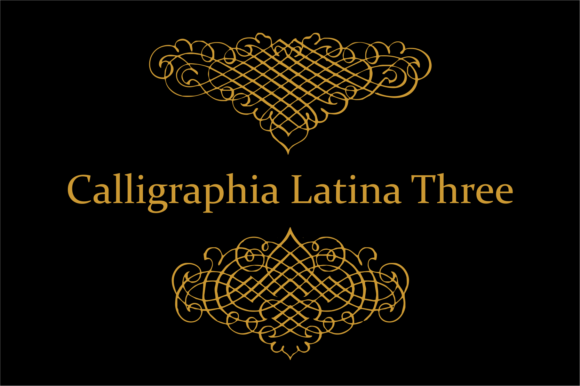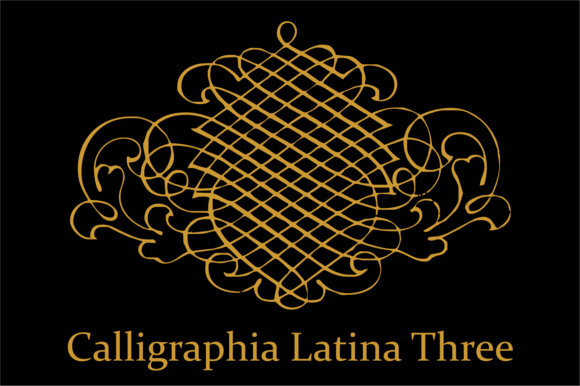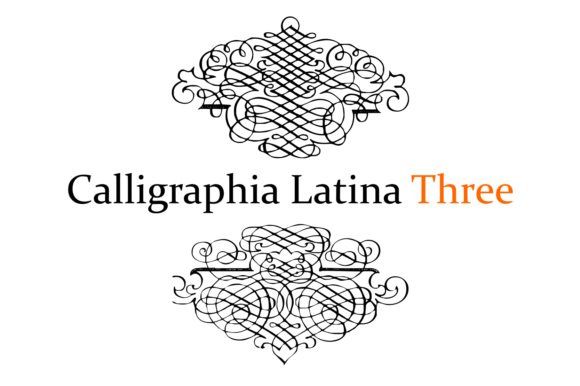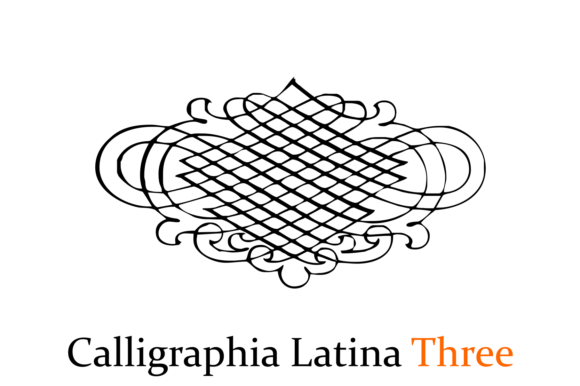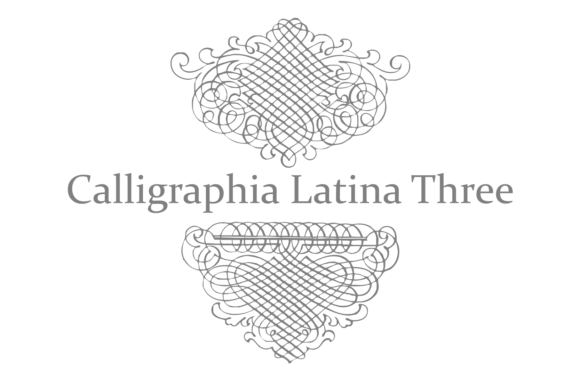
Calligraphia Latina Font
About Calligraphia Latina Font
CalligraphiaLatina is indeed one of the most successful ornament fonts in the realm of typography. It embraces the trend of “messed-up calligraphy,” which has gained significant popularity in recent times. Developed by Intellecta Design, CalligraphiaLatina has become a global best-seller due to its unique and artistic appeal.
CalligraphiaLatina goes beyond a single font and encompasses a whole family of fonts, consisting of 13 different sets. This extensive collection provides a complete solution for designers seeking intricate fleurons and ornaments to complement various styles of artwork.
The original CalligraphiaLatina font captures the essence of calligraphy with a distinct and messy flair. Its intentionally imperfect strokes and irregularities add a touch of authenticity and artistic charm to designs. This font is particularly well-suited for projects that aim to evoke a sense of handcrafted elegance and unconventional beauty.
The family of fonts associated with CalligraphiaLatina expands the creative possibilities even further. With its diverse range of styles and variations, designers have access to a comprehensive set of fleurons and ornaments to enhance their artwork. These intricately designed elements can be used to embellish typography, create decorative borders and frames, or add flourishes and accents to various design compositions.
The popularity of CalligraphiaLatina can be attributed to its ability to infuse designs with a distinct and expressive character. By embracing the “messed-up calligraphy” trend, this font allows designers to break away from traditional norms and explore a more free-flowing and artistic approach to typography.
Whether you’re working on branding, packaging, invitations, or any other design project, CalligraphiaLatina offers a versatile toolkit to add an intriguing and unique touch. Its broad range of fleurons and ornaments ensures that you can find the perfect elements to complement your artistic vision and create visually captivating designs.
In summary, CalligraphiaLatina is a highly successful ornament font renowned for its association with the trend of “messed-up calligraphy.” Its worldwide popularity stems from its ability to provide a complete solution for designers seeking intricate fleurons and ornaments. With its diverse family of fonts, CalligraphiaLatina allows designers to explore a range of artistic styles and incorporate expressive elements into their designs, making it a valuable resource for various types of artwork.